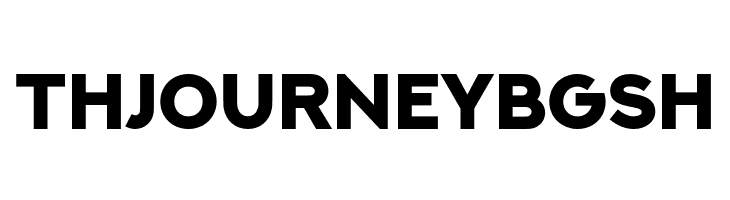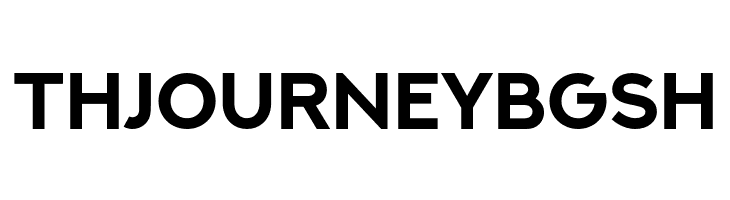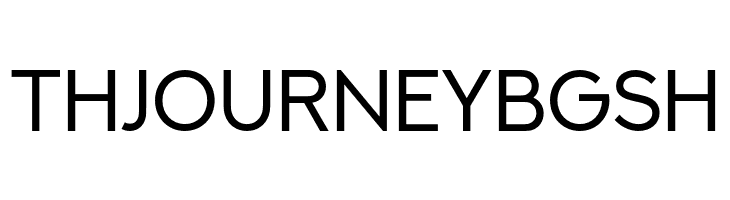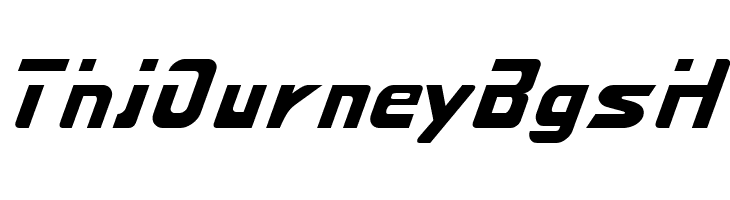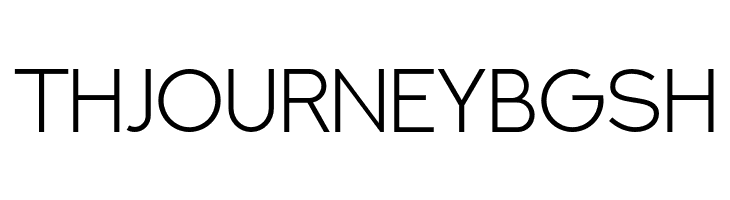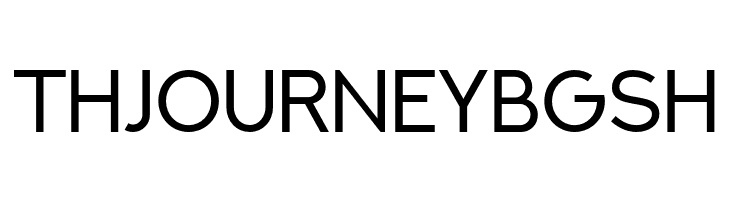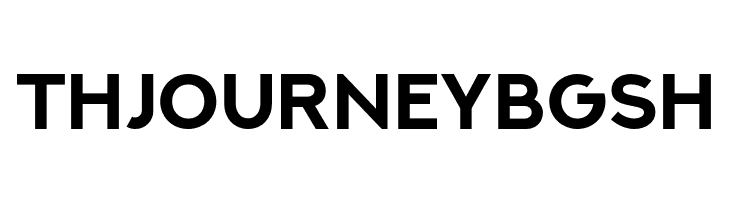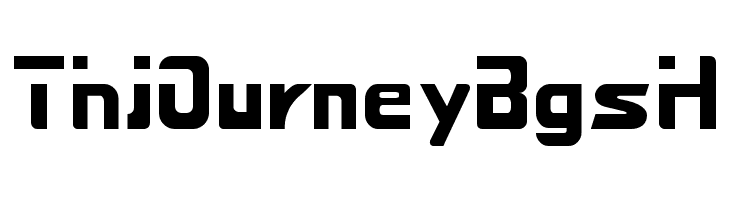
( imagex - www.imagex-fonts.com )
A bold, graffiti-style font with sharp, angular letterforms and a dynamic, street-art aesthetic.
( imagex - www.imagex-fonts.com )
A bold, graffiti-inspired font with sharp, angular edges and dynamic styling.
( Fonts by www.3r4u.de )
A bold, futuristic font with geometric shapes and sharp angles.
( Fonts by www.3r4u.de )
A modern, slanted font with bold, sleek characters and a futuristic style.
( Alexander Pravdin )
A modern, geometric sans-serif font with uniform stroke width and clean lines.
A modern, geometric sans-serif font with clean lines and uniform strokes.
( Alexander Pravdin )
A bold, modern sans-serif font with clean, geometric lines and uniform width.
A bold, modern sans-serif font with clean lines and geometric shapes.
A bold, geometric font with a modern and clean aesthetic.
( Alexander Pravdin )
A modern, geometric sans-serif font with clean lines and balanced proportions.